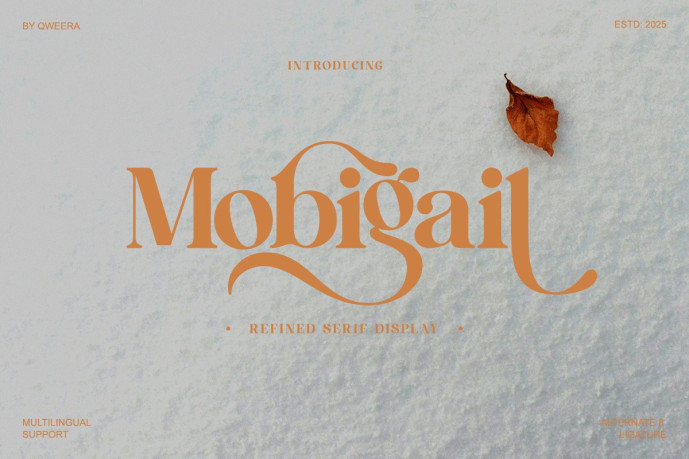
Mobigail Serif Font
Mobigail Serif Font is a refined retro-modern serif font with warm curves, expressive ligatures, and a timeless editorial feel. Its elegant contrast and flowing ornamental shapes make it ideal for premium branding, lifestyle packaging, magazine layouts, and artistic design work. Crafted for professionals who need a serif with personality, sophistication, and high visual impact.